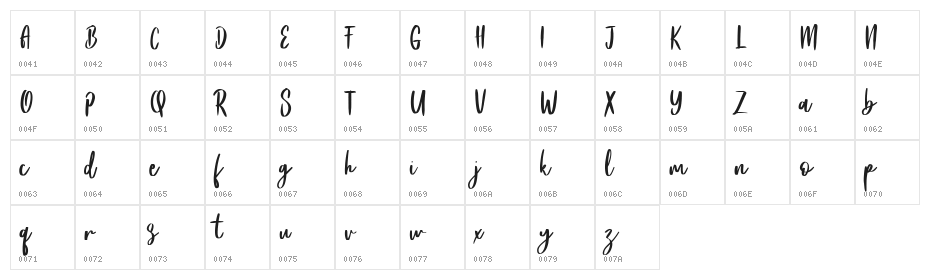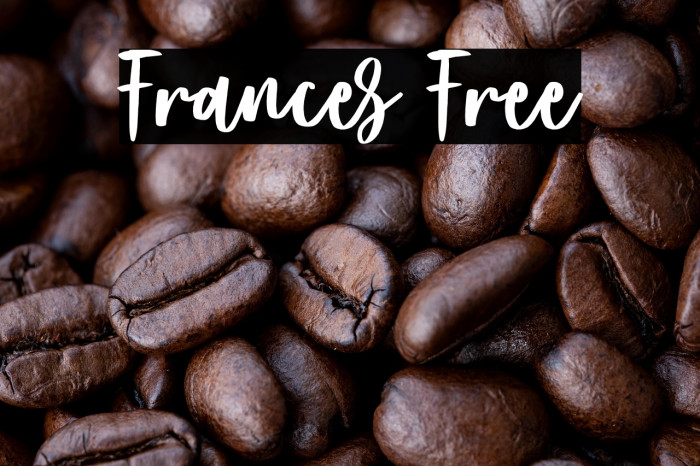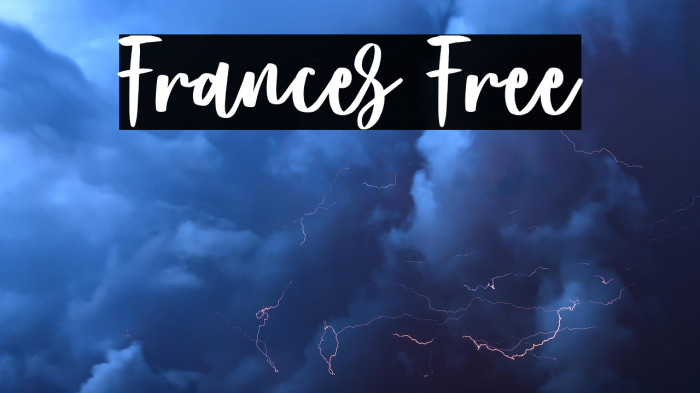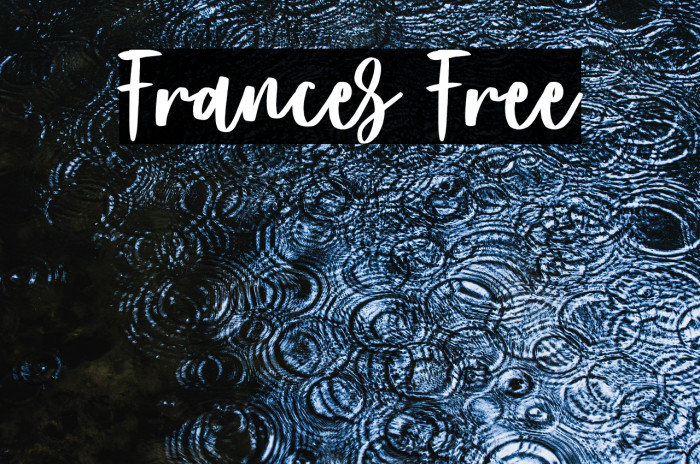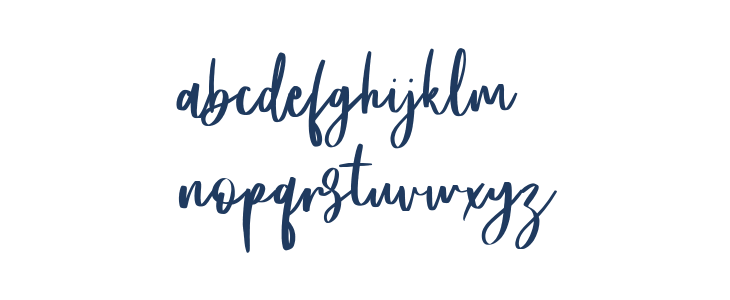
Frances Free Font
Frances Free Description
This font features a bold and expressive handwritten style, characterized by its fluid and dynamic strokes. The uppercase letters are tall and slightly condensed, giving a sense of elegance and sophistication. The lowercase letters maintain a consistent flow, with some characters extending below the baseline, adding a playful touch. The overall appearance is both artistic and modern, making it suitable for creative projects. The font's brush-like texture adds depth and personality, making it stand out in any design. Its versatility allows it to be used in various contexts, from branding to personal projects.
A bold, expressive handwritten font with fluid, dynamic strokes from Regular fonts.
- Font: Frances Free
- Proposed Projects: Ideal for branding, invitations, social media graphics, and artistic projects.
- Use Case: Logos, Headlines, Invitations